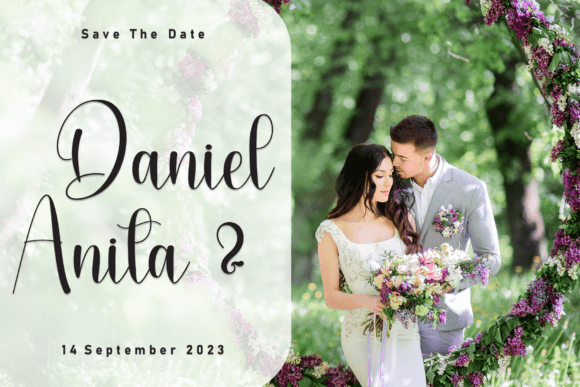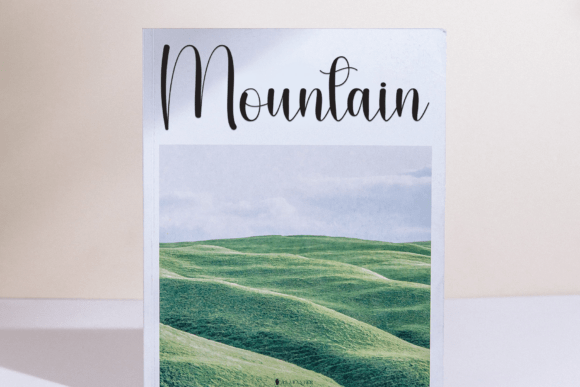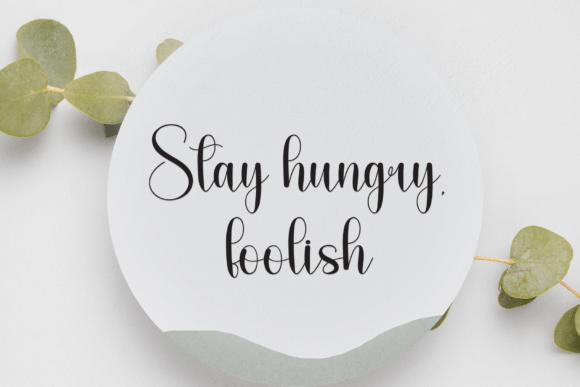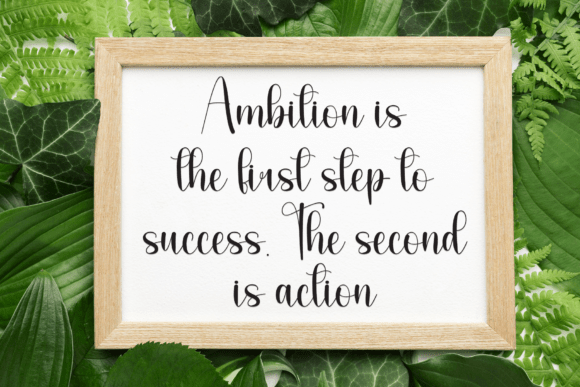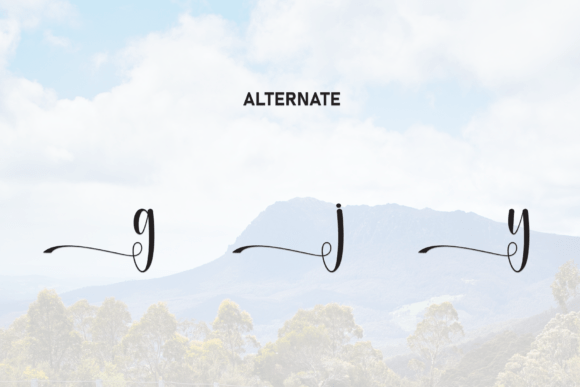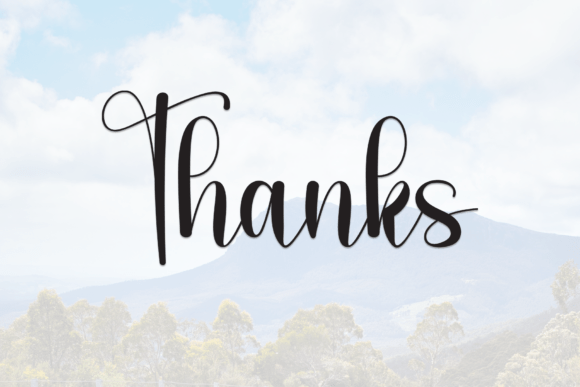
Introducing Country Font: Elevate Your Designs with Elegant Handwritten Style
In the world of typography, a font can make all the difference in the aesthetic and feel of a design project. For those seeking a modern, sophisticated, and approachable handwritten script, the Country Font is an exceptional choice. This beautiful font is characterized by its flowing curves, graceful ascenders, and elegant terminal swashes, making it perfect for a variety of creative applications.
What is Country Font?
Country Font is a modern script handwritten font that embodies the essence of natural penmanship. Its smooth, fluid strokes offer a refined yet approachable aesthetic, ideal for designs that require a touch of elegance and warmth. Whether you’re working on wedding invitations, branding materials, greeting cards, quotes, or lifestyle designs, this font is sure to impress.
Key Features of Country Font
- Full Set of Characters: The font includes a comprehensive set of uppercase and lowercase letters, ensuring you have all the characters you need for your designs.
- Numerals and Punctuation: In addition to letters, Country Font also includes numerals and punctuation, making it a versatile choice for a wide range of projects.
- Multilingual Support: With multilingual support, you can use Country Font across diverse projects, reaching a broader audience with your designs.
- PUA Encoding: The font features PUA encoding, allowing you to access all stylistic features and extras with just a few clicks, making it easy to customize your designs.
The Design and Aesthetic of Country Font
Country Font boasts a balanced contrast and organic rhythm that combines warmth and sophistication. Its elegant, flowing curves and graceful ascenders create a beautiful visual flow, making it perfect for designs that require a touch of refinement. The terminal swashes add a finishing touch, providing a polished look that’s ideal for high-end designs.
Why Choose Country Font?
There are several reasons why Country Font stands out as a top choice for designers and crafters:
- Versatility: Its wide range of applications, from wedding invitations to branding and greeting cards, makes it a versatile addition to any designer’s toolkit.
- Elegance and Approachability: The font strikes the perfect balance between elegance and approachability, making it suitable for a variety of design projects.
- Customization: With PUA encoding and a full set of characters, you have the flexibility to customize your designs and bring your creative vision to life.
- Professional Quality: Country Font offers a professional, high-end aesthetic that’s sure to elevate your designs and set them apart.
Applications of Country Font
The versatility of Country Font makes it suitable for a wide range of applications, including:
- Wedding Invitations: Add a touch of elegance and romance to your wedding invitations with this beautiful font.
- Branding: Use Country Font to create a sophisticated and approachable brand identity that resonates with your audience.
- Greeting Cards: Whether it’s a birthday, anniversary, or holiday card, this font is perfect for adding a personal touch.
- Quotes and Typography: Showcase your favorite quotes or create stunning typographic designs with Country Font.
- Lifestyle Design: From packaging to advertising, this font is ideal for any lifestyle design project that requires a touch of elegance.
Country Font is a beautiful, modern script handwritten font that offers a unique blend of elegance, approachability, and versatility. With its flowing curves, graceful ascenders, and elegant terminal swashes, it’s perfect for designers and crafters seeking a sophisticated handwritten script for their projects. Whether you’re working on wedding invitations, branding materials, or lifestyle designs, Country Font is an excellent choice that is sure to elevate your designs and bring your creative vision to life.